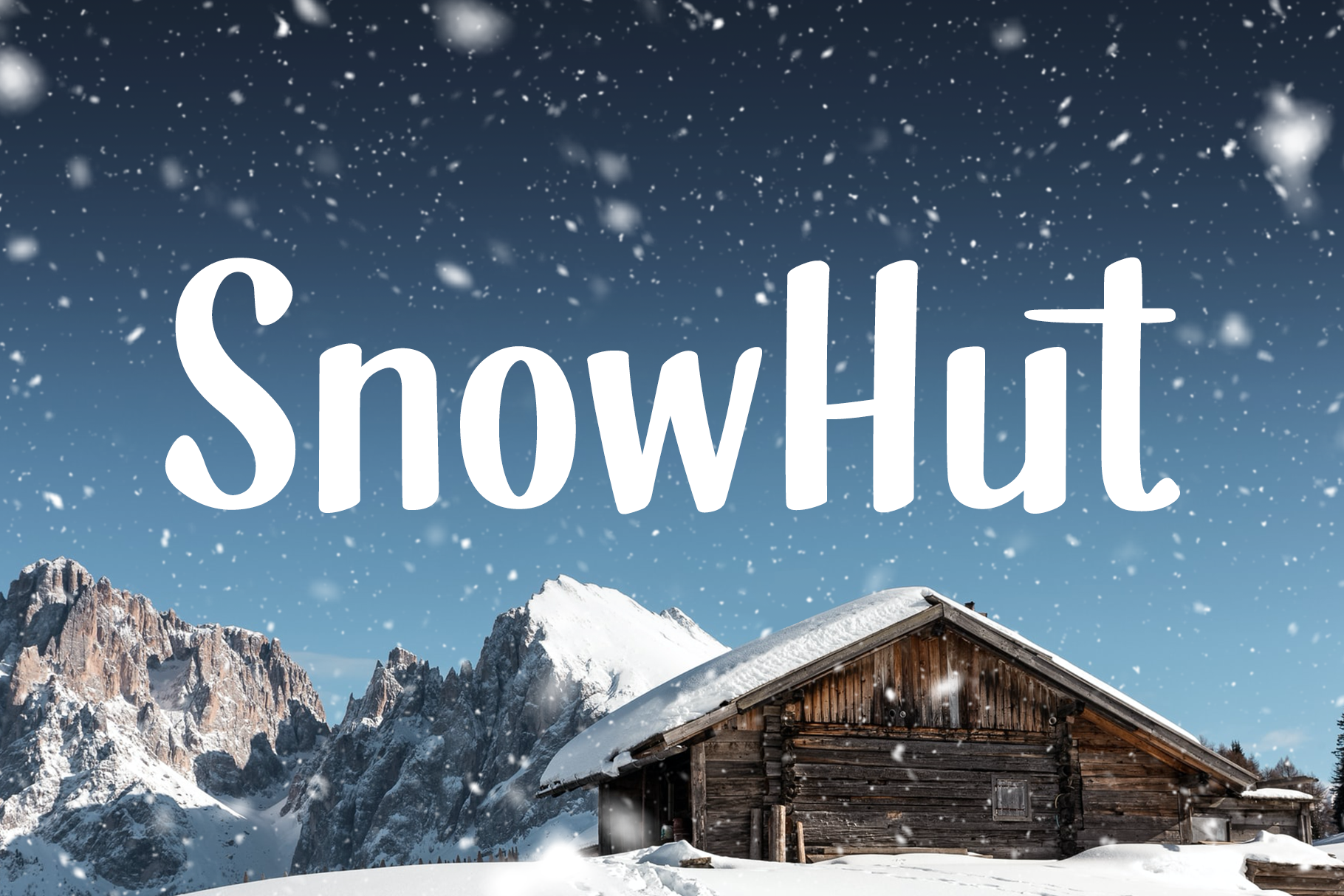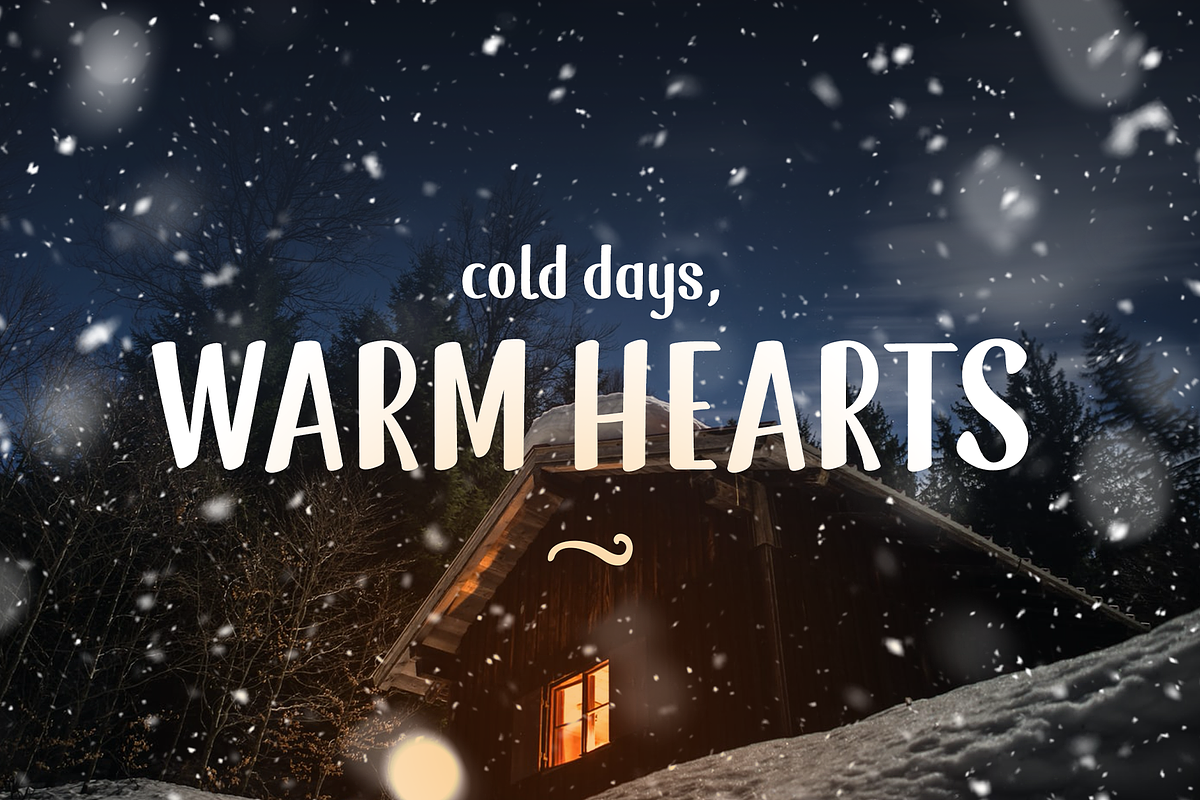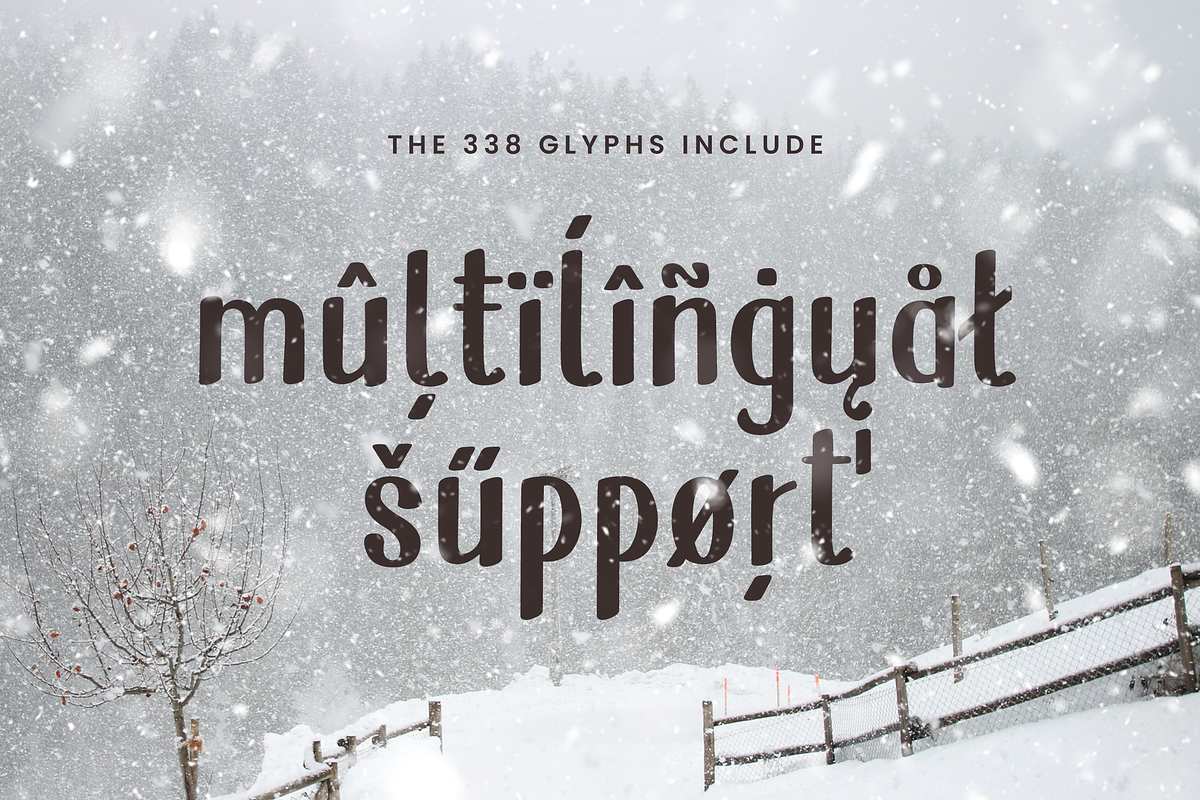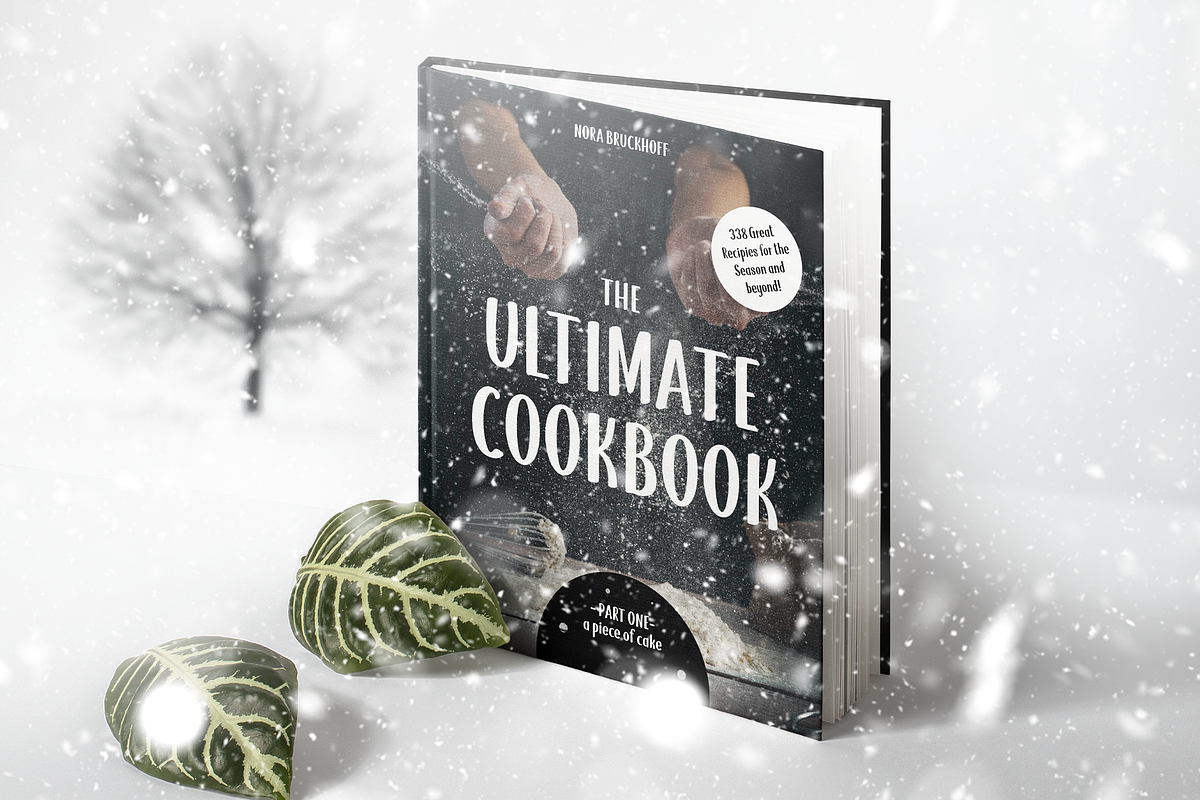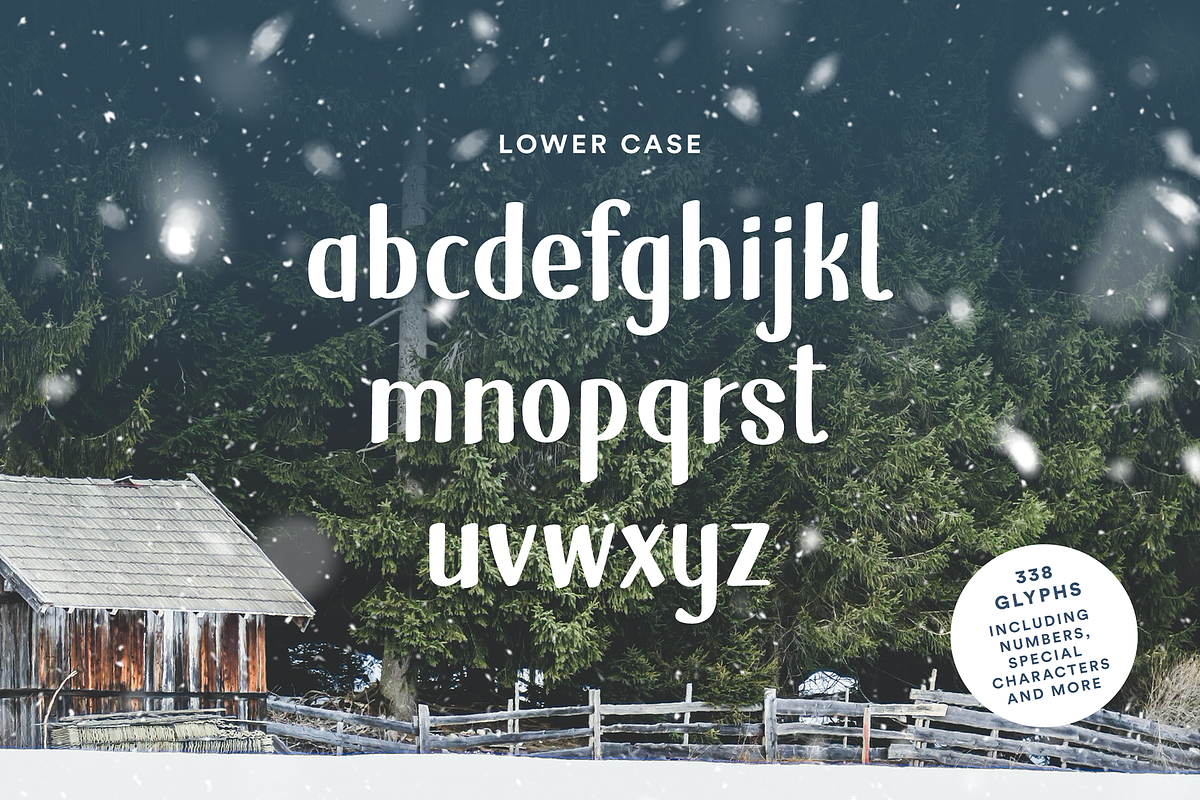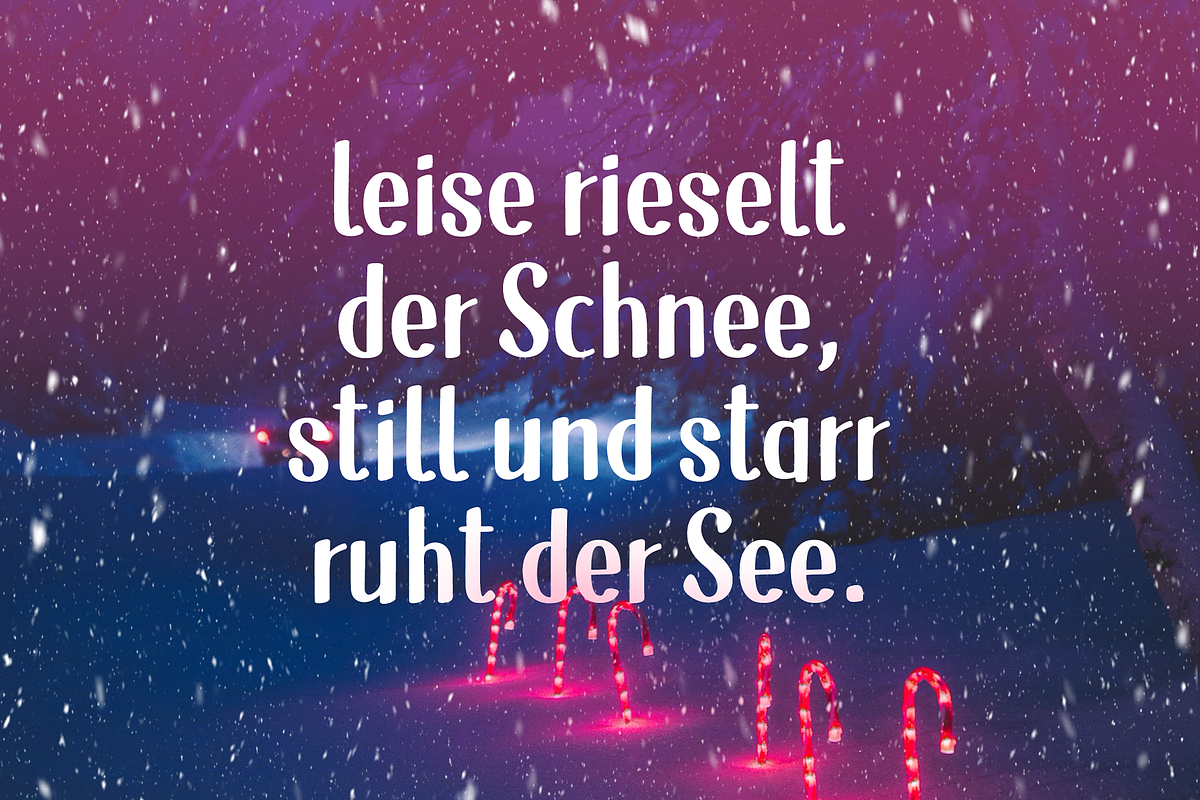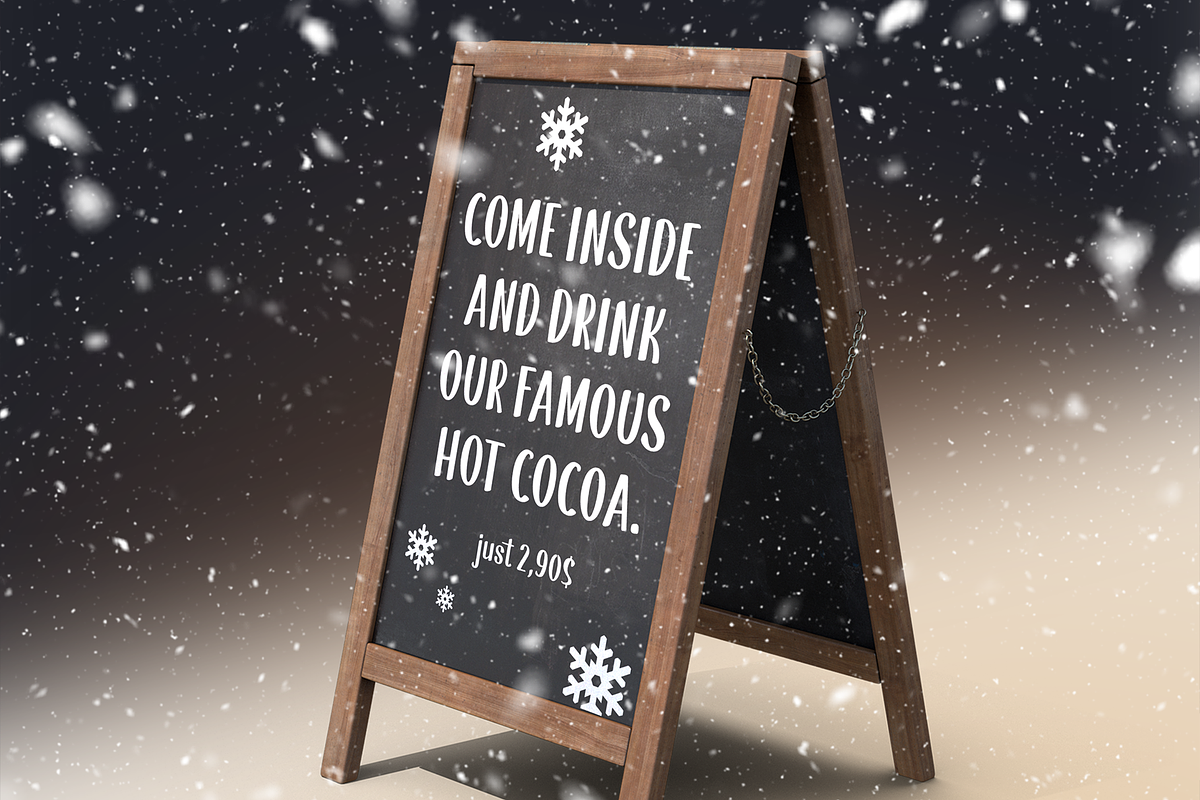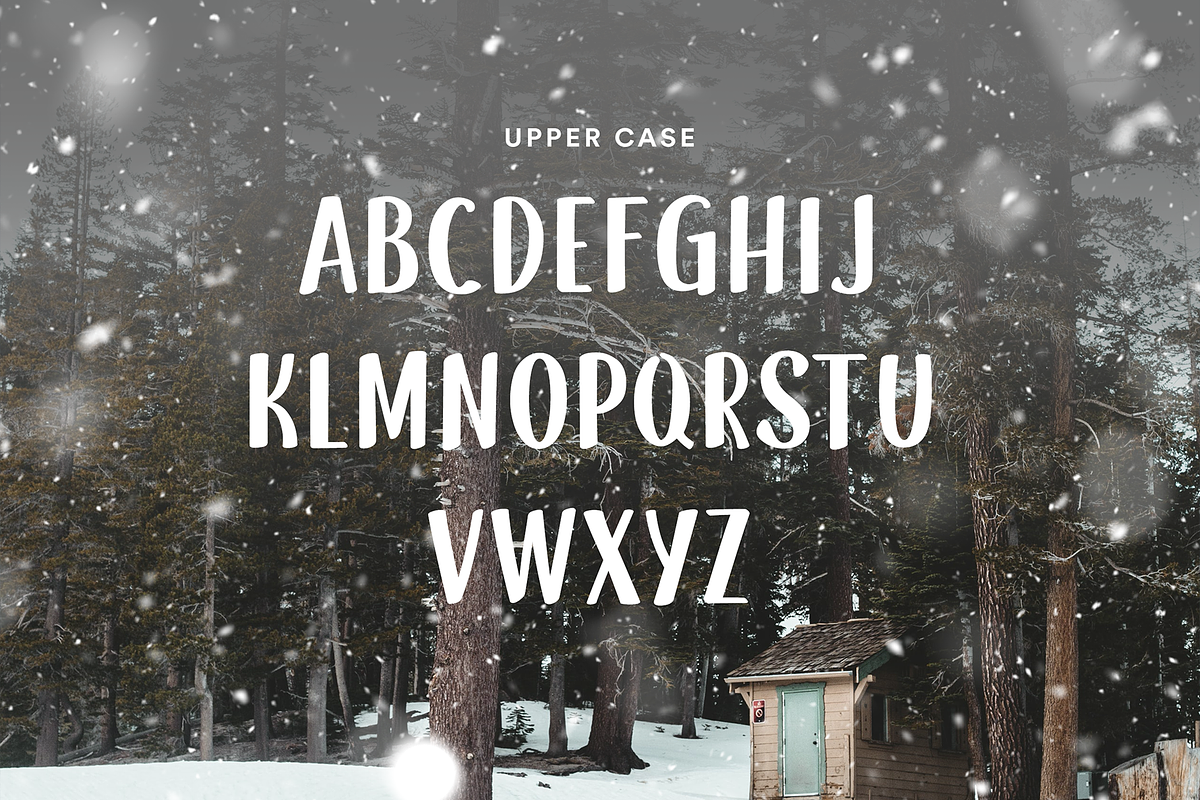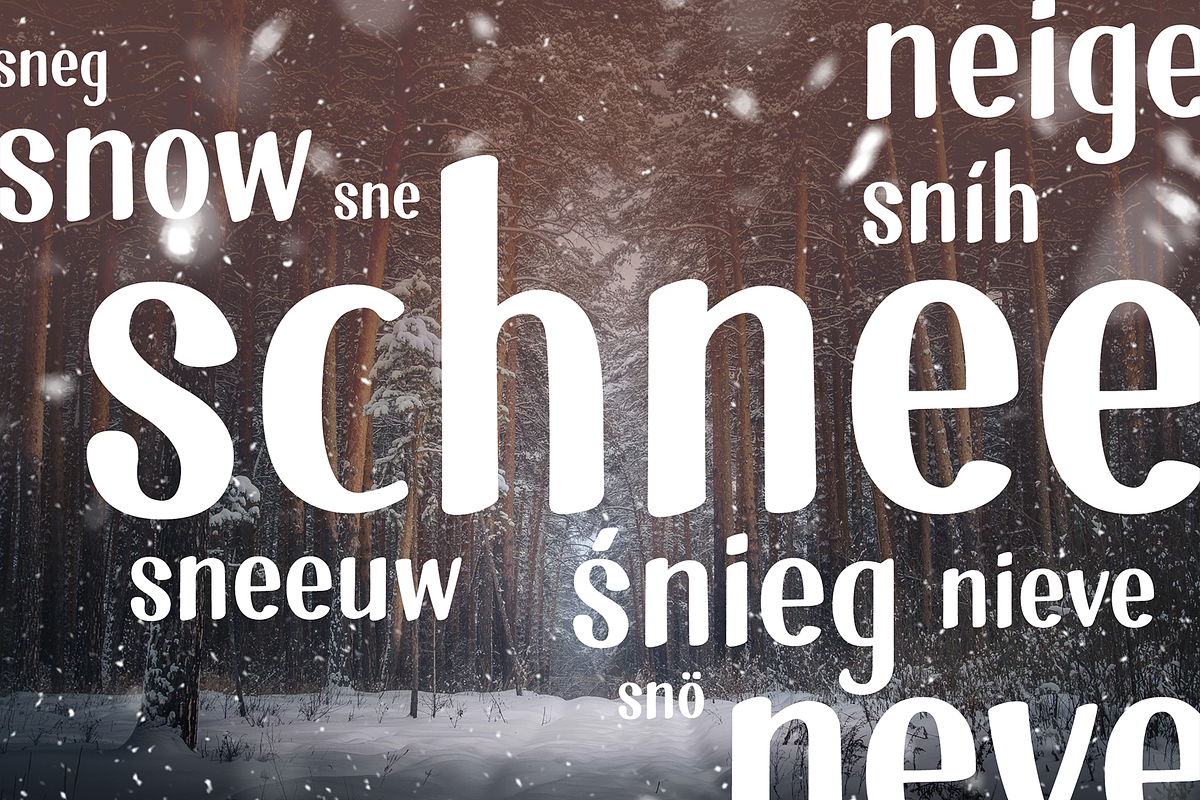
SnowHut Typeface
Just in time for the season we’re releasing our new handwritten styled font. No matter if you’re a fan of winter or maybe prefer summer, “SnowHut” can be used for almost anything. Its constructed yet organic look makes it possible to use the font using just capital letters. But also the small letters achieve a modern and playful touch to your designs.
It features over 338 glyphs including many special characters and language support for the latin alphabet.